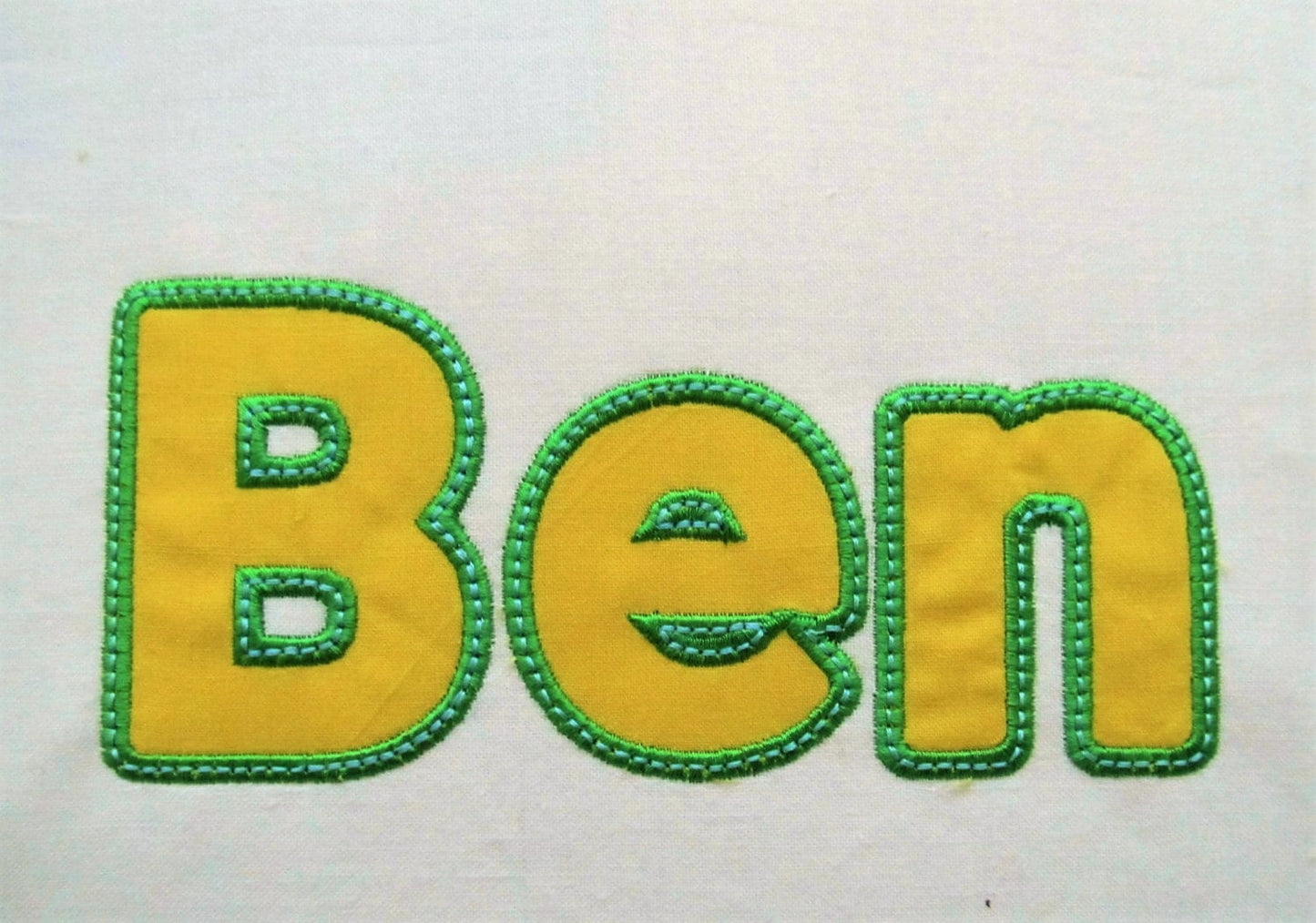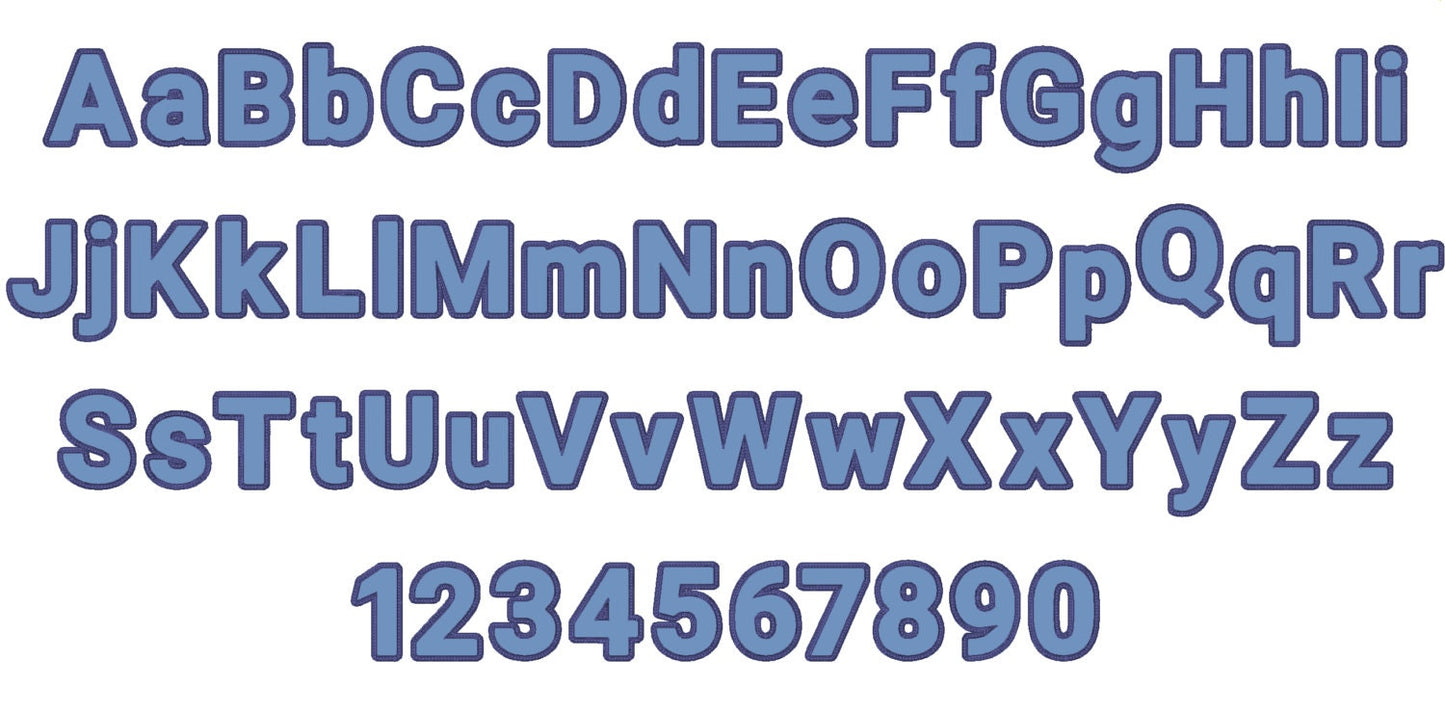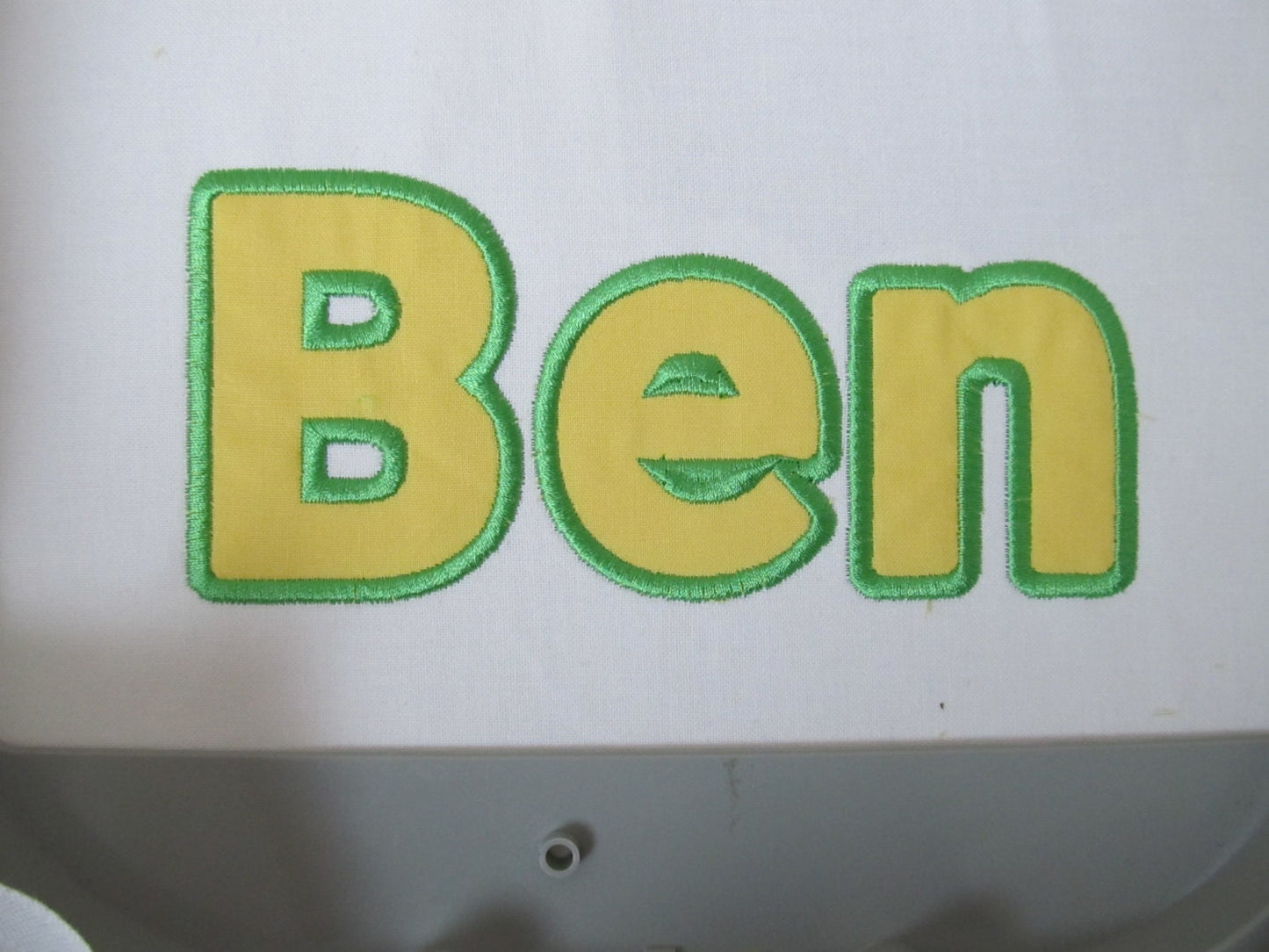
Or click to open the linkA simple, friendly applique font for boys' names and monograms on shirts, blankets, bags and pillows.
Uppercase and lowercase letters, numbers 0 to 9 and a few punctuation marks, in three sizes: 2, 2.4 and 2.8 inches. Applique with a nice wide satin stitch outline; the top bean stitching can be left out.